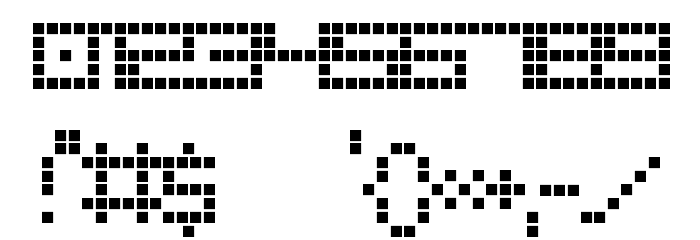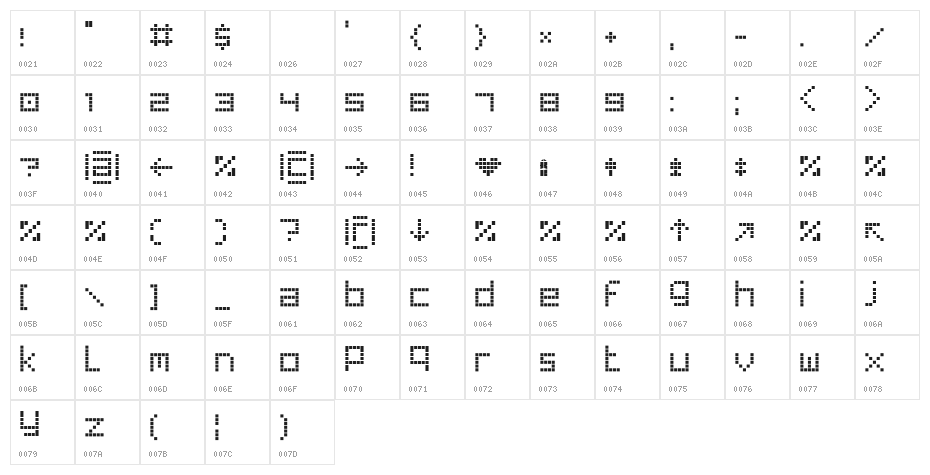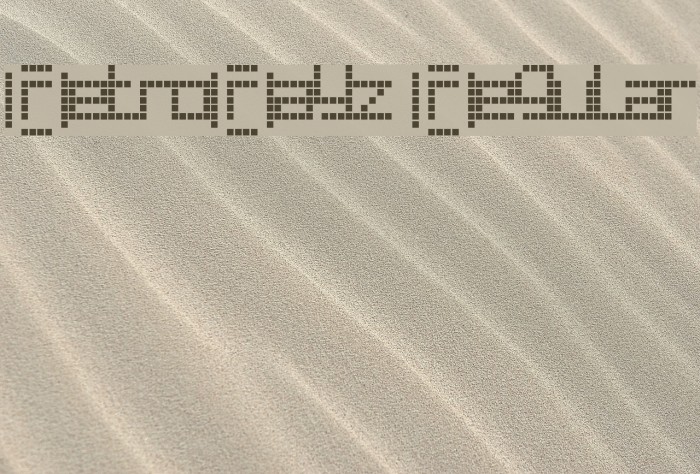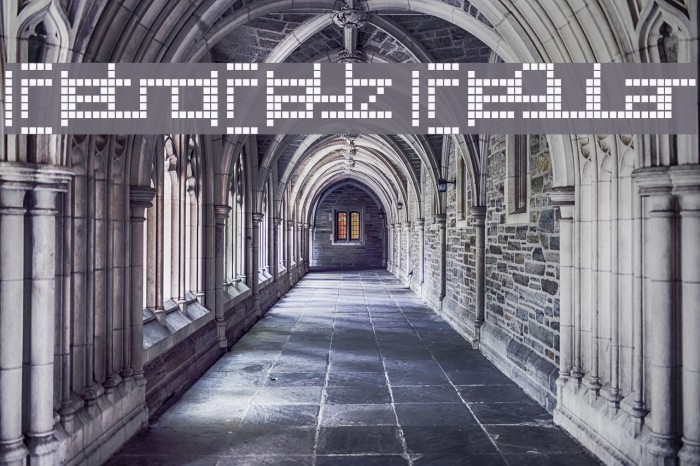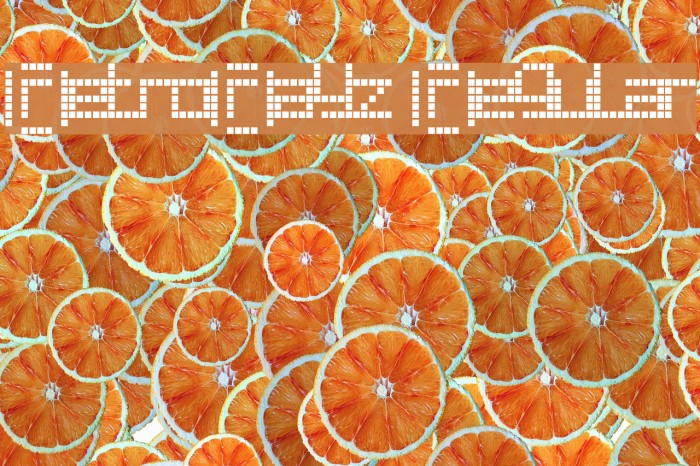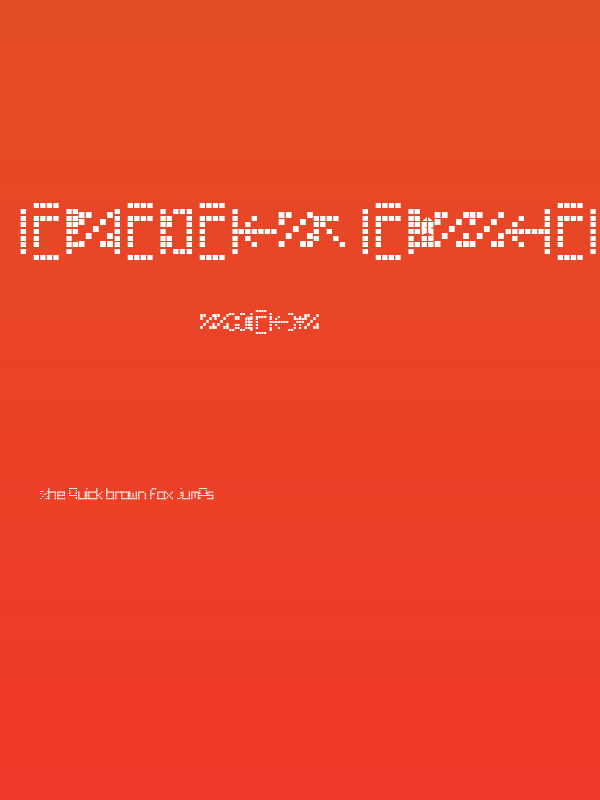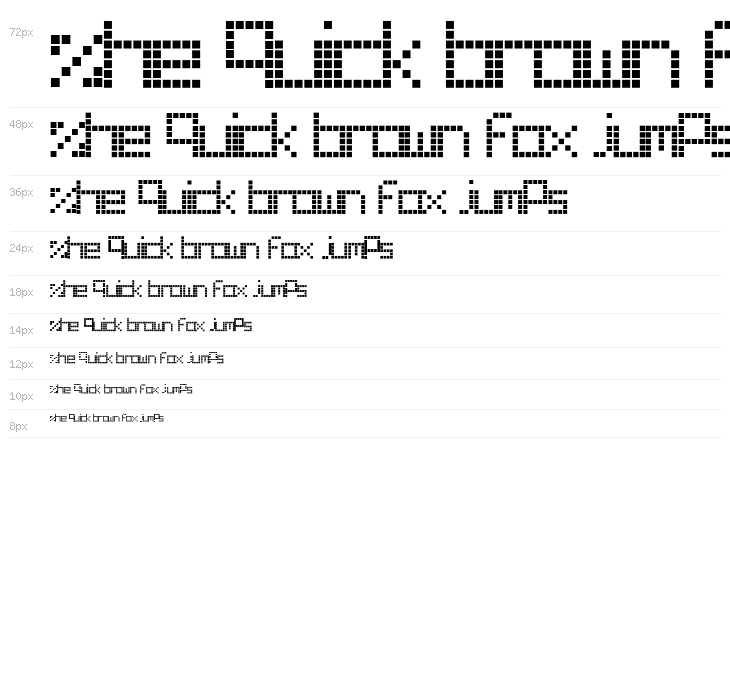
RetroRayz Regular Font
RetroRayz Regular Description
This font features a unique pixelated design reminiscent of early digital displays and retro video games. Each character is constructed from a grid of small squares, giving it a distinctly blocky and geometric appearance. The uppercase and lowercase letters maintain a consistent height, while numbers and special characters follow the same pixelated style. This design choice creates a cohesive and nostalgic aesthetic, perfect for projects that aim to evoke a sense of vintage digital technology. The font's uniformity in character height and width ensures readability while maintaining its distinctive style.
| Use Case | Logos, Headlines, Digital Art |
| Proposed Projects | Ideal for retro-themed designs, video game graphics, digital art, and nostalgic branding projects. |